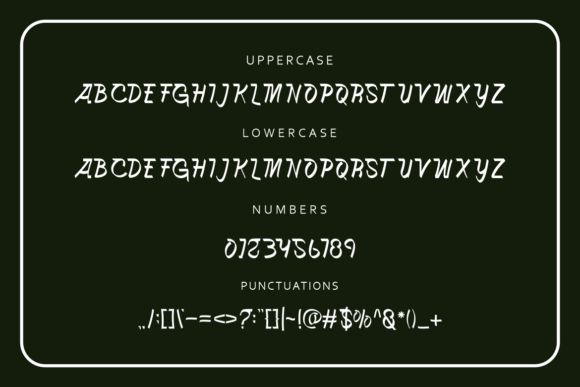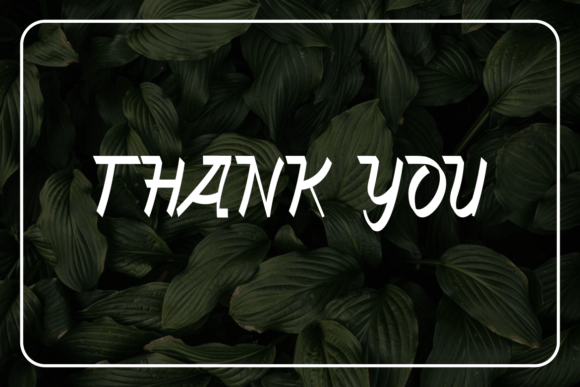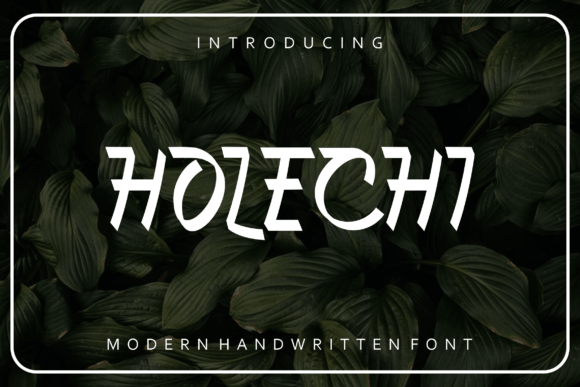
Holechi
Holechi: A Versatile and Original Slab Serif Font
Holechi is a versatile slab serif font that combines originality with legibility. This distinctive typeface features a beautiful handmade feel that ensures successful application across various design projects.
Key Features of Holechi
• Versatile Design: Offers surprising adaptability across applications.
• Original Style: Features unique and distinctive characteristics.
• Legible Structure: Maintains clear readability despite creative elements.
• Handmade Feel: Brings an authentic, crafted touch to designs.
Best Uses for Holechi
Thanks to its versatile characteristics, Holechi works especially well for:
When using Holechi in your designs, keep these tips in mind:
• Try it for headlines or display text to showcase its original style.
• Use different sizes to highlight its handmade qualities.
• Let its versatility inspire creative applications.
• Take advantage of its legibility for various design contexts.
To sum up, Holechi is an excellent choice for designers seeking a versatile and original slab serif font. Its combination of legibility and handmade character makes it perfect for various creative projects. Whether you’re creating branding materials, designing editorial content, or developing marketing materials, Holechi offers the perfect blend of originality and functionality.
Furthermore, Holechi’s distinctive design allows it to shine in contexts where both creativity and readability are key. For instance, from display typography to editorial design, this font can elevate your projects with its unique style. Also, its handmade yet legible appearance works particularly well in designs that aim to make an authentic impact.
In conclusion, Holechi truly captures the essence of versatile design in slab serif typography. Its ability to surprise while maintaining legibility shows how well it can serve various creative needs. Therefore, for those wanting to add a touch of handmade originality to their work, Holechi can enhance any design with its unique style. Ultimately, it’s perfect for designers aiming to ensure success across a wide range of creative projects.